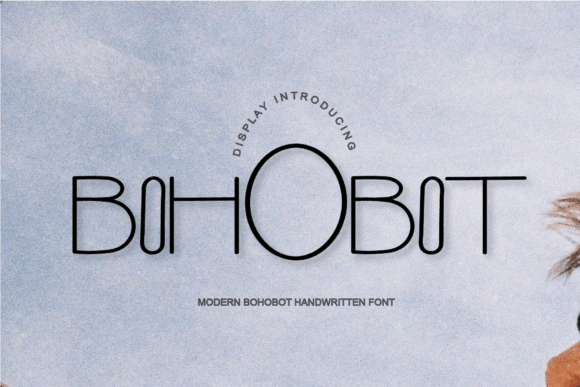
Journey into the realm of elegance with Bohobot Font, a sans serif masterpiece crafted to bestow a touch of sophistication upon your creative endeavors. Immerse yourself in the world of fashion, packaging, fragrance, cosmetics, and social media, and witness the transformative power of Bohobot.
Carefully designed to exude an air of luxury, Bohobot Font possesses an innate ability to elevate your creations to new heights of refinement. Its meticulously crafted curves and delicate flourishes evoke a sense of elegance that commands attention, while its unwavering consistency ensures seamless integration into any design project.
Unleash your creativity and let Bohobot Font guide you towards remarkable outcomes. Its versatility knows no bounds, effortlessly adapting to a myriad of applications, from captivating social media posts to alluring packaging designs. Let your imagination soar as you witness the transformation of ordinary designs into captivating expressions of artistry.
With Bohobot Font as your creative companion, you possess the power to evoke emotions and forge connections with your audience. Its inherent beauty and charm will leave a lasting impression, captivating their senses and drawing them into the captivating world you create.
Embrace the allure of Bohobot Font and embark on a journey of creative exploration, where inspiration knows no limits. Its exquisite design will elevate your projects to new heights of sophistication, leaving an indelible mark on the hearts and minds of those who encounter your creations.